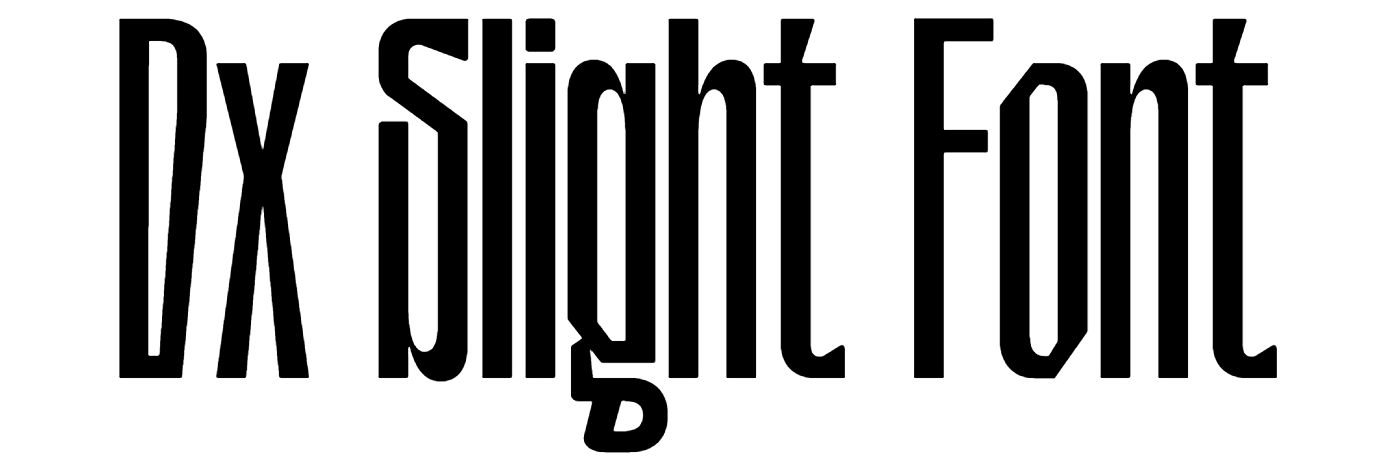
Dx Slight
Dx Slight is a sans serif font created by Hendra Maulia, Aulia Rahman (2021). Simple, open letter shapes keep it easy to read at almost any size, from app buttons to big headlines. The free download includes two styles, and you can try every one of them with your own text in the preview above.
- Designer: Hendra Maulia, Aulia Rahman
What You Can Type With Dx Slight
Dx Slight covers the full alphabet in upper and lowercase, plus all ten numbers, so you can set names, dates and prices without switching fonts. Everyday marks like &, !, ? and @ are there too. Thanks to its accented letters, it also works for Spanish, French, German, Portuguese and Italian, not just English. Of its 368 glyphs, about 33 are not on your keyboard at all. That is where the alternates explained below live.
Where Dx Slight Works Best
Think of Dx Slight for websites, app screens and clean logos. It works for headings and body text alike. If the download has several weights, use a heavier one for titles and a lighter one for paragraphs. Because the family has more than one style, you can mix them in a single design for headings, subheadings and highlights.
Who designed Dx Slight font?
Dx Slight was designed by Hendra Maulia, Aulia Rahman. The copyright line inside the font is dated 2021.
Does Dx Slight support accented letters?
Yes. Dx Slight includes the accented letters needed for Spanish, French, German, Portuguese and Italian, so it works for more than just English.